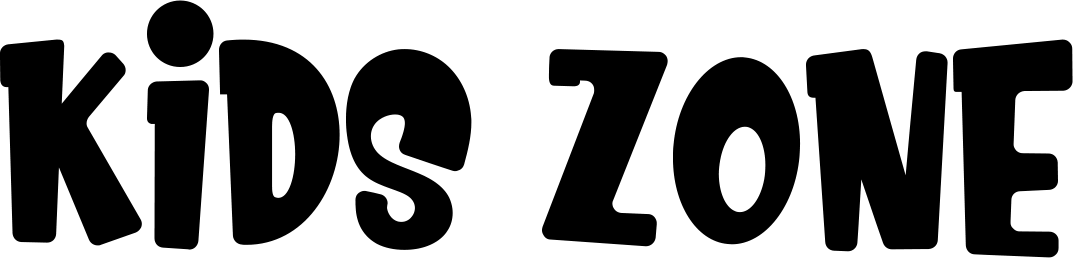
Kids Zone Font
If you were looking for a free comic font, I bet this one can spark your interest. Luckily Kids Zone is coming in 3 various versions. Choose the one you like and share a happy and pleasant mood. It fits comic books, kids’ apparel, cartoon titles, etc. By the way, don’t forget to check Resource Boy for more products.